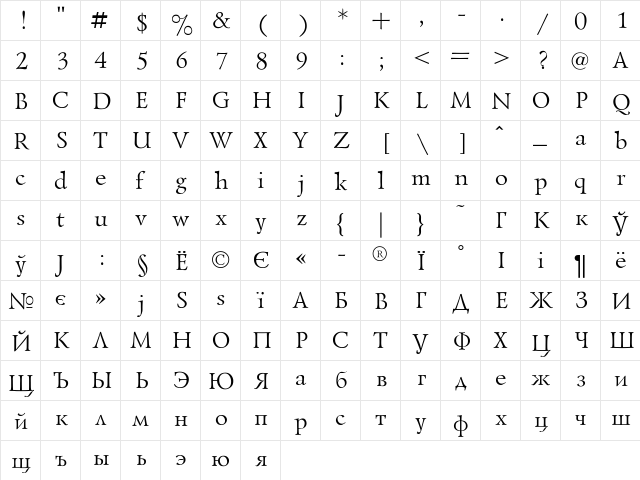
Lazurski Regular
Design Context for Lazurski Typeface
Lazurski takes a measured approach to typography — its balanced proportions and neutral character make it a reliable workhorse for both digital and print work.